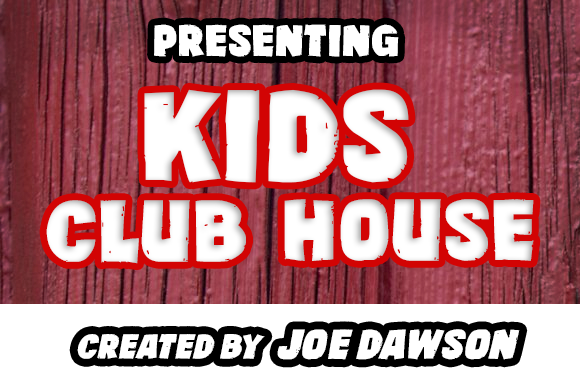
Introduction to Kids Club House Font
Kids Club House is a fun, chunky craft font suitable for a wide variety of projects.
Kids Club House is a fun, chunky craft font suitable for a wide variety of projects!